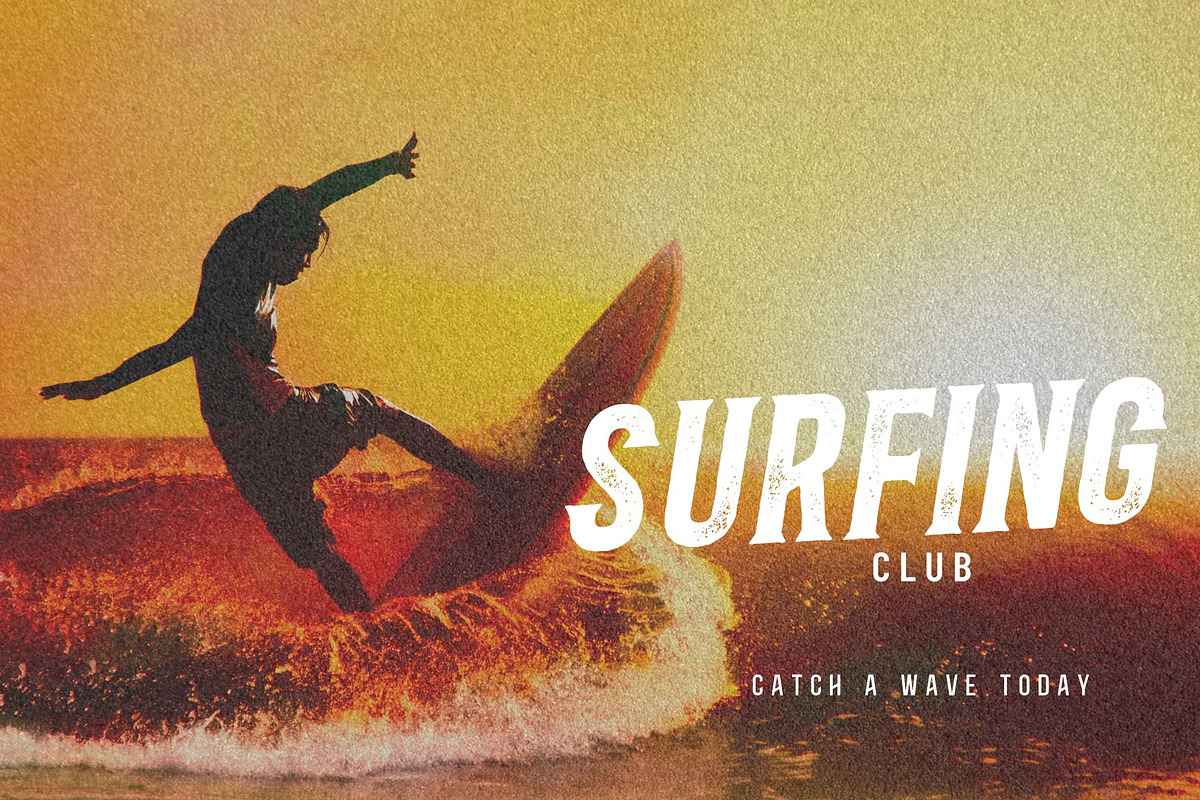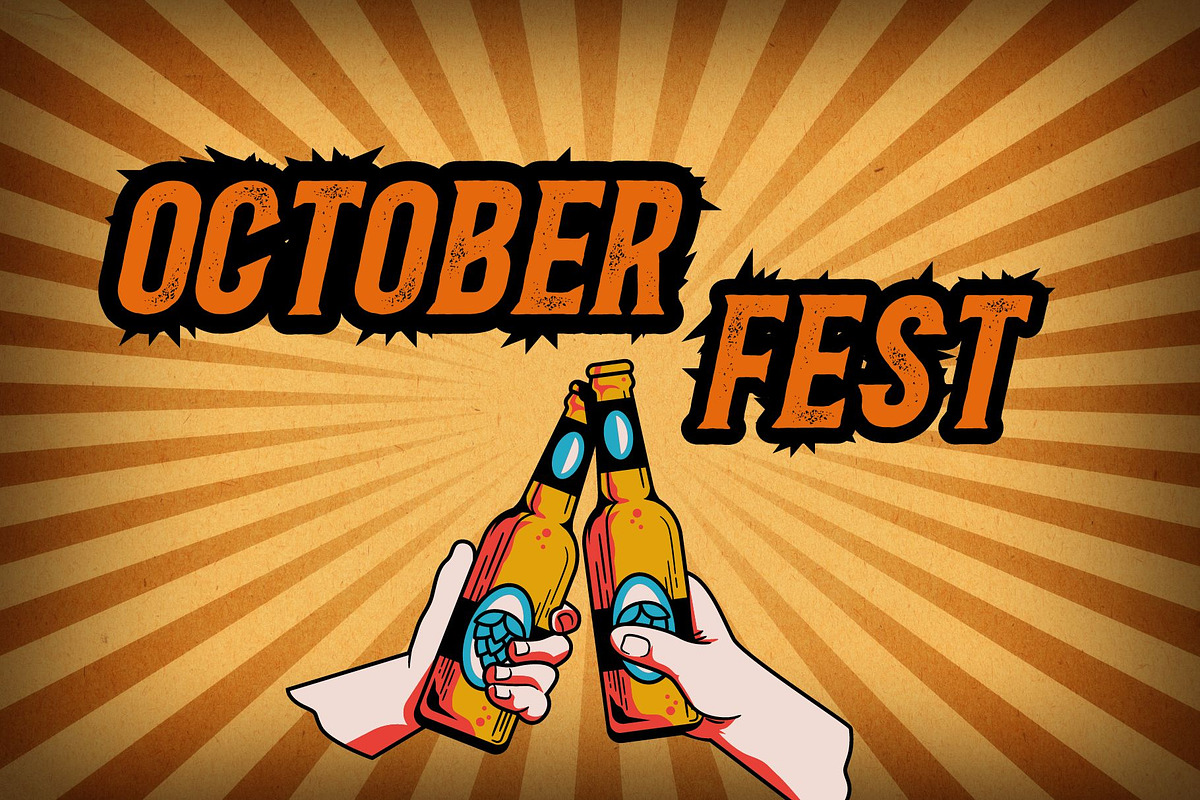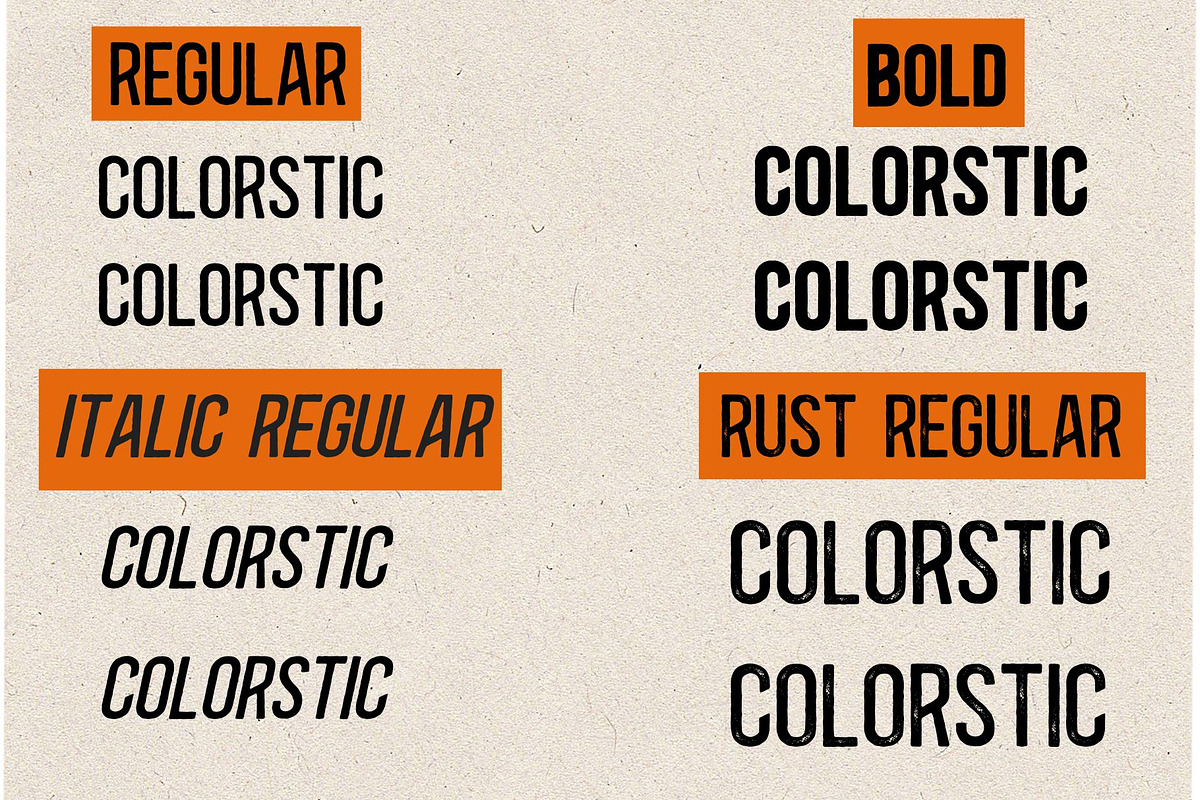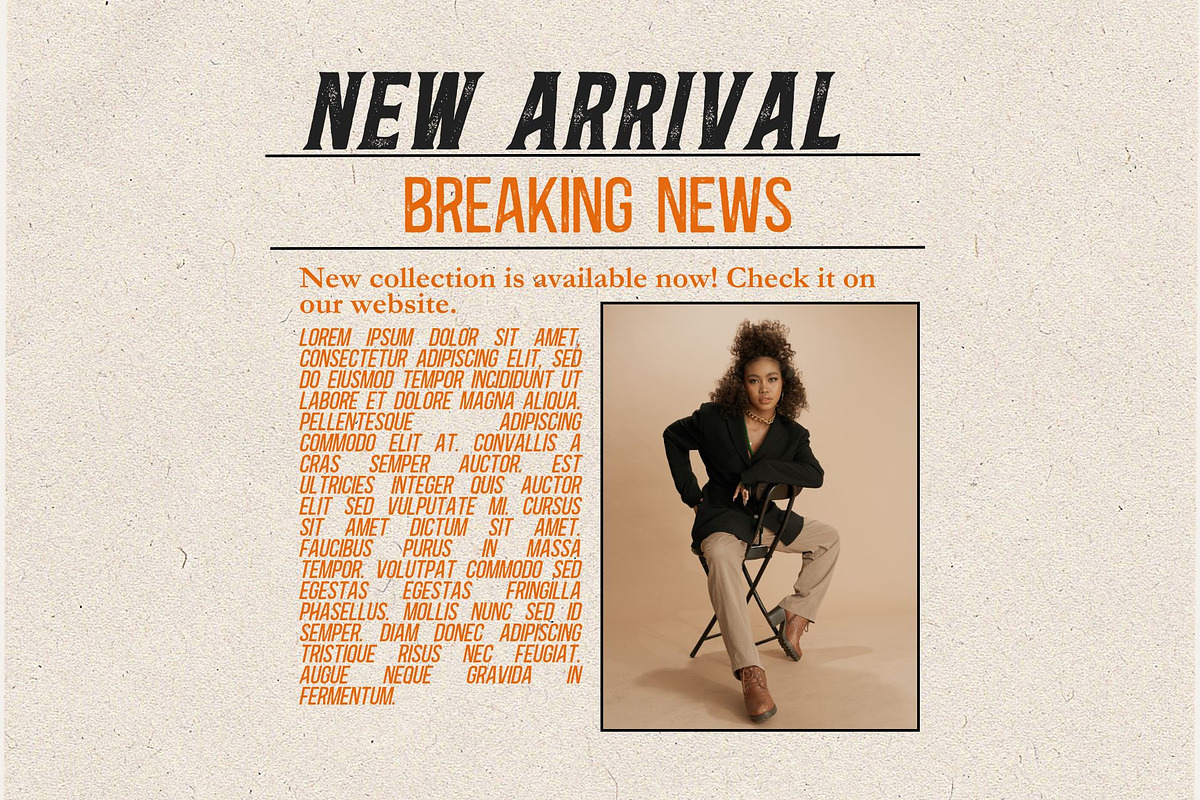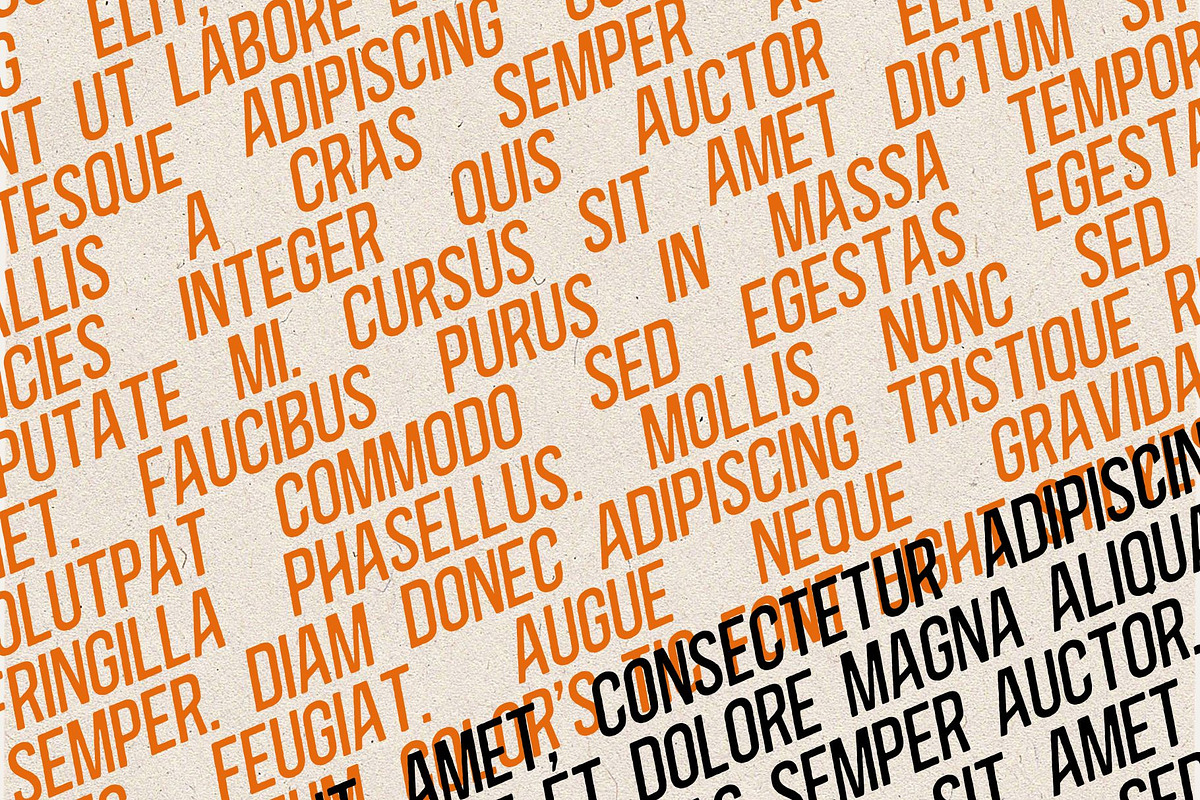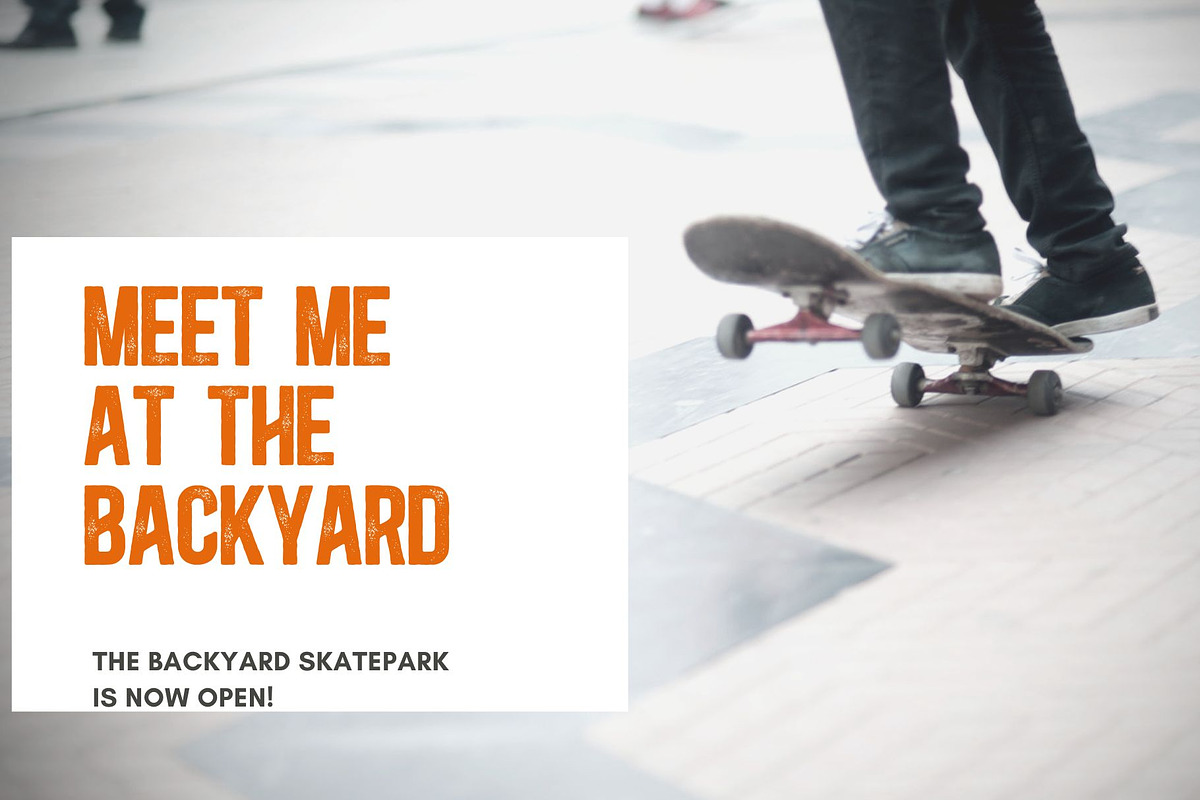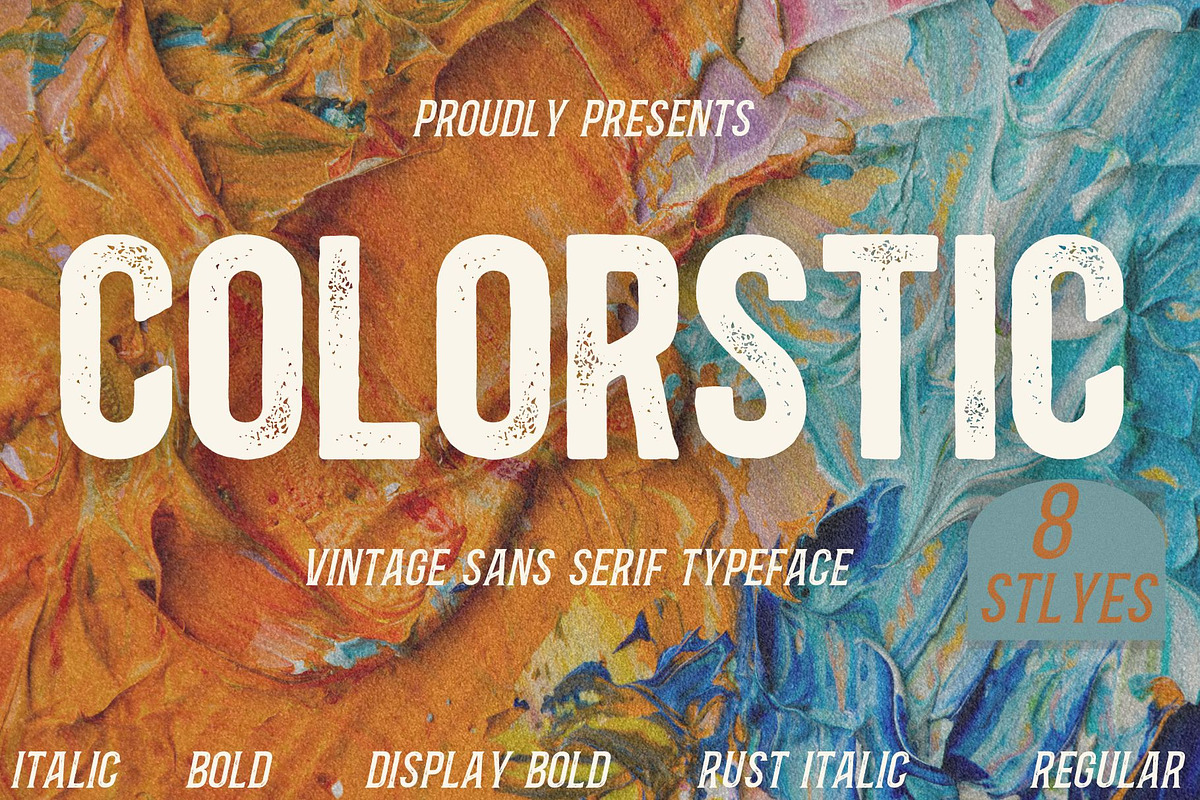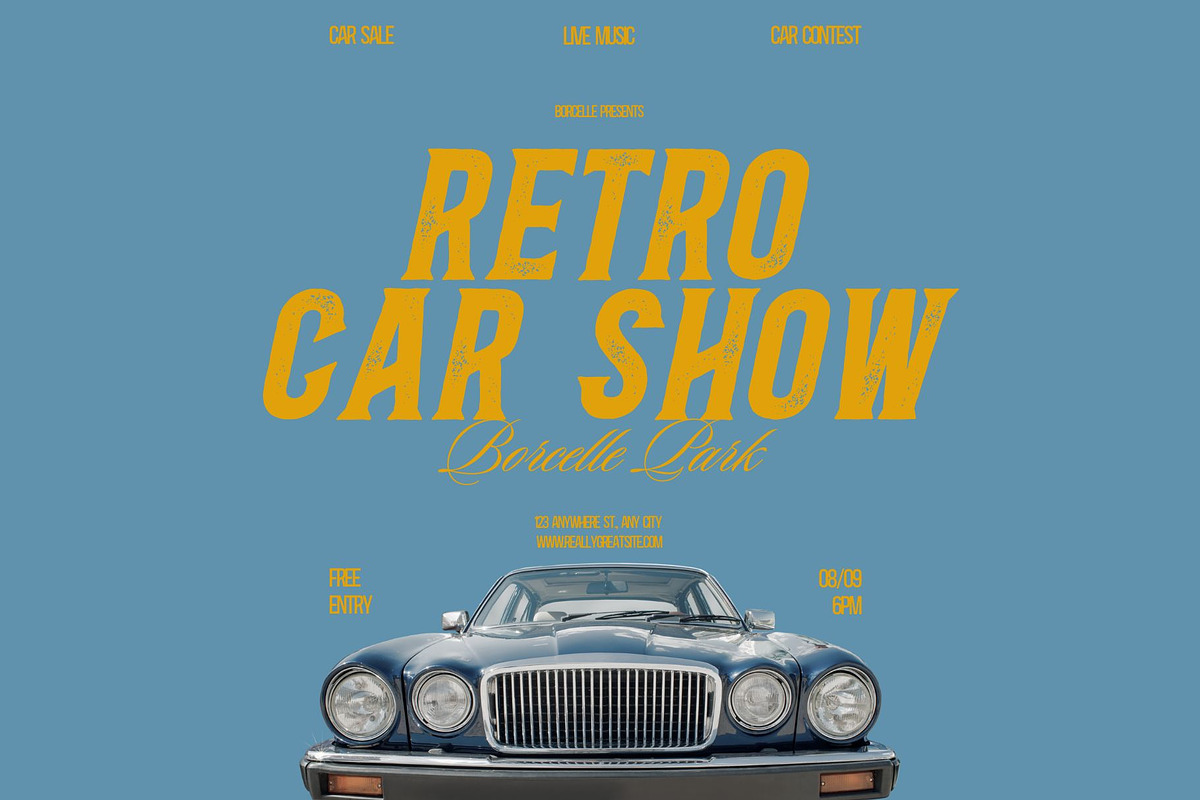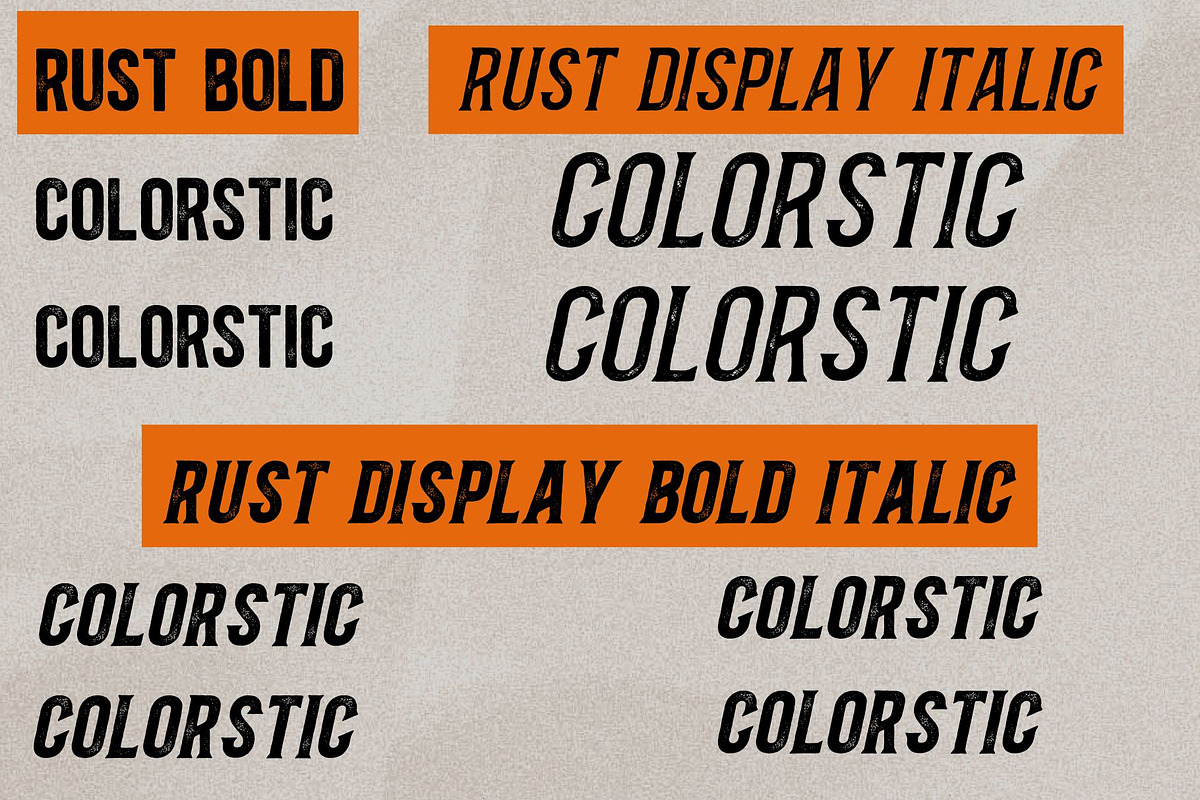
Colorstic-Vintage sans serif
Colorstic is a vintage font family with a round and rough touch. It has a natural feel and is perfect for logos, labels, banners, posters, and every other design which needs a natural feel.